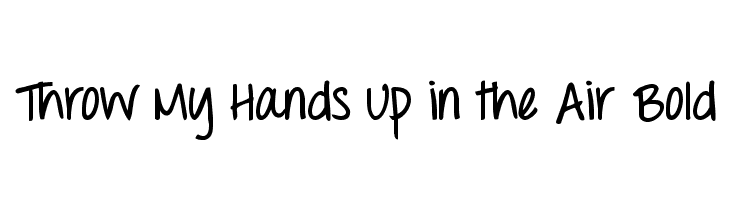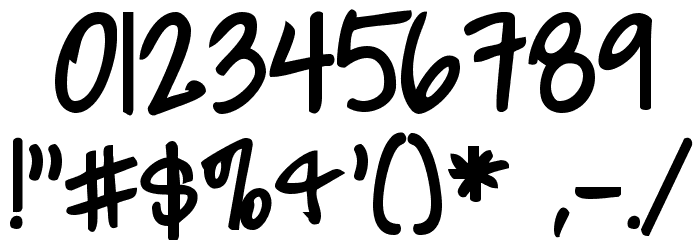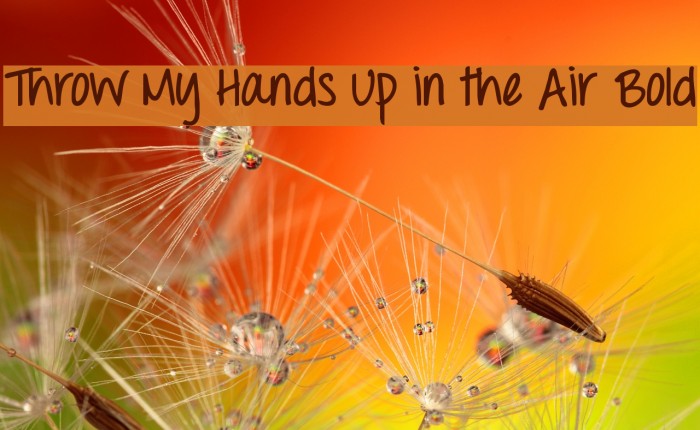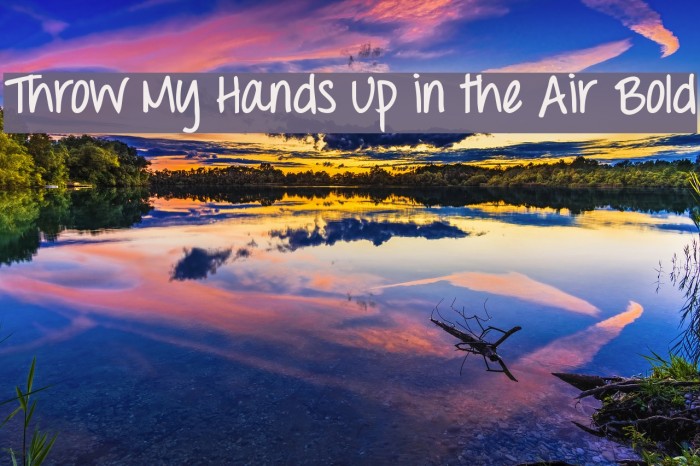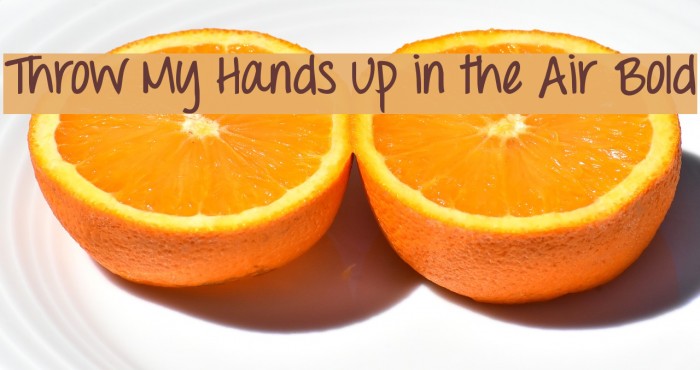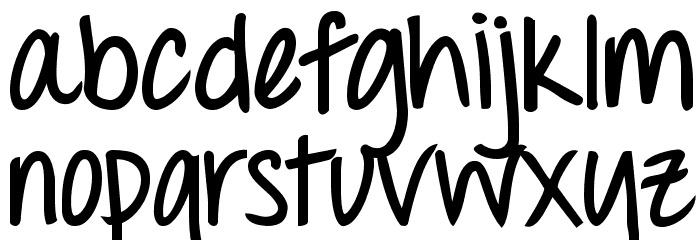
Throw My Hands Up in the Air Bold Font
Throw My Hands Up in the Air Bold Description
This font features a playful and energetic handwritten style, characterized by its bold and rounded letterforms. The uppercase and lowercase letters maintain a consistent flow, with a slight slant that adds to its casual and informal appearance. The numbers and special characters are crafted with the same lively spirit, making them easily readable while retaining the font's unique personality. The strokes are thick and uniform, providing a strong visual impact that is both friendly and approachable.
| Overall Style | Playful |
| Use Case | Logos, Headlines, Posters |
| Proposed Projects | Ideal for children's books, playful branding, greeting cards, and social media graphics. |